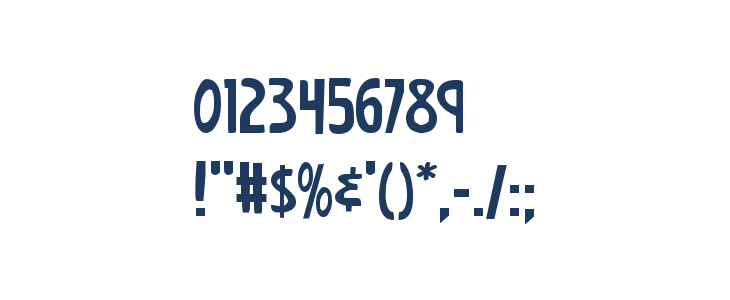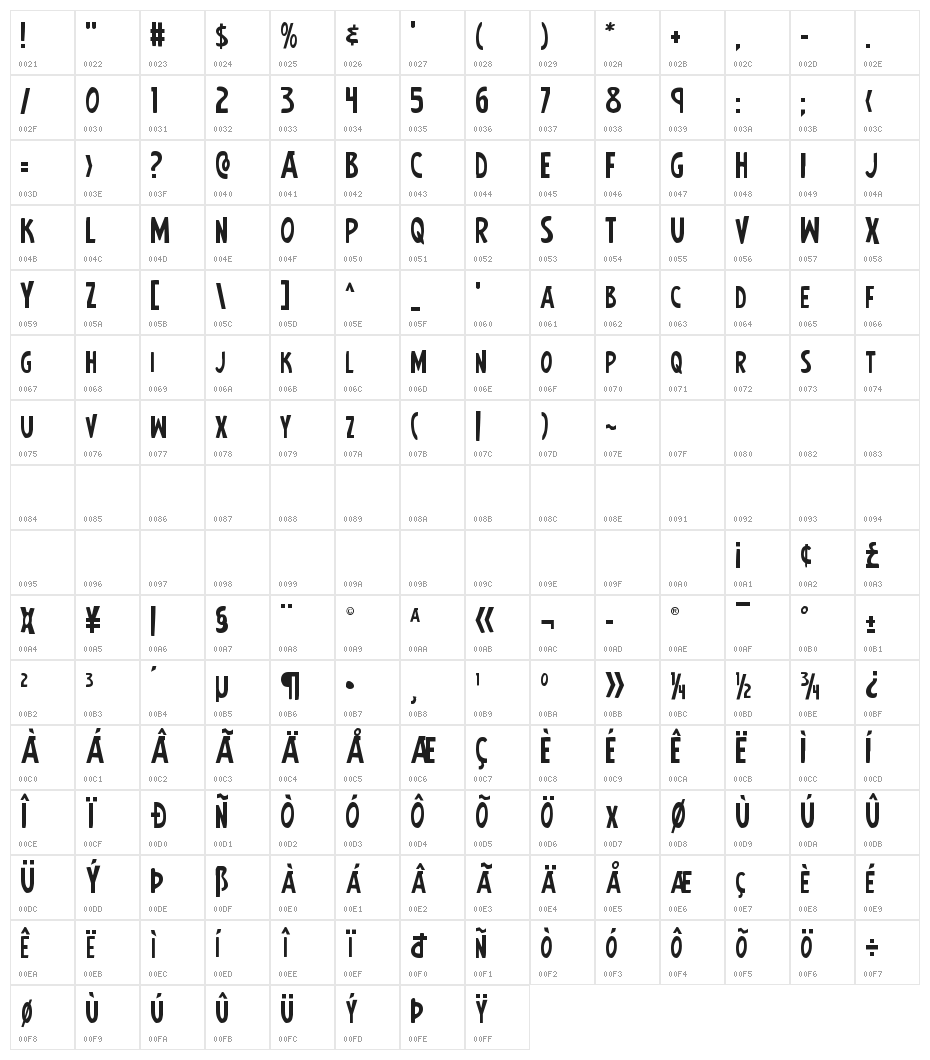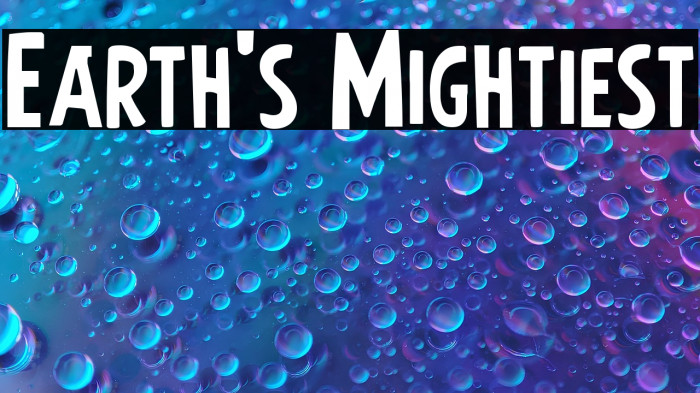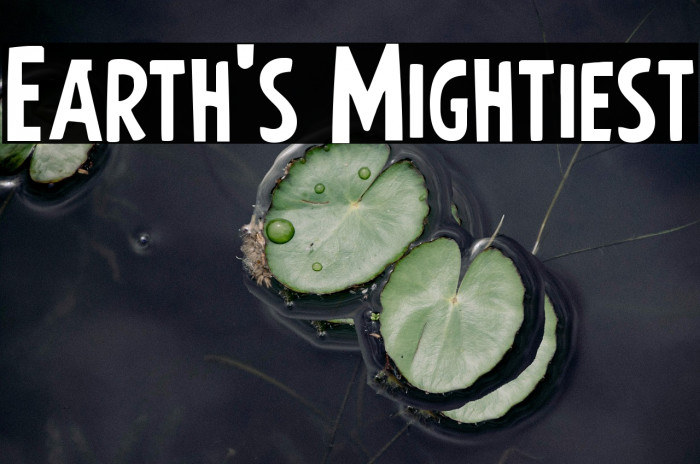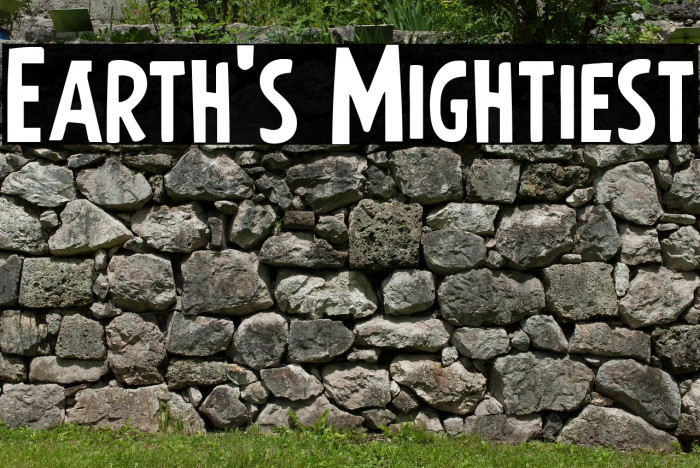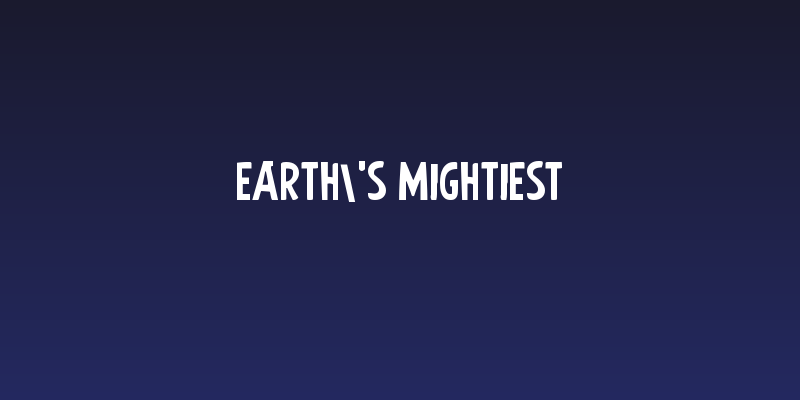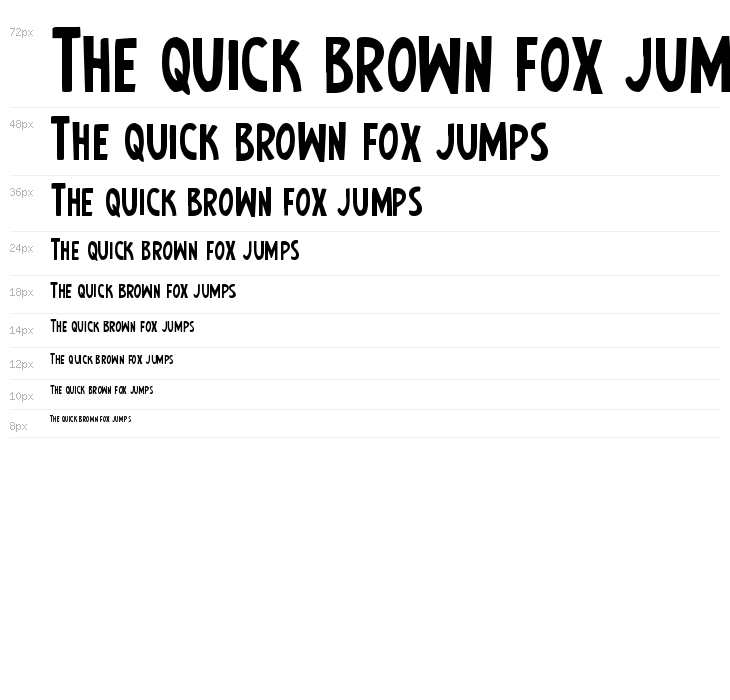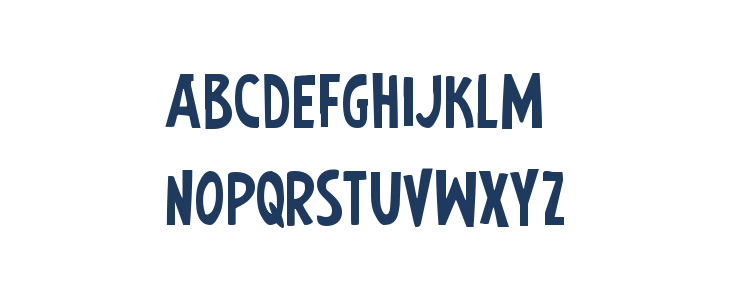
Earth's Mightiest Font
Earth's Mightiest Description
This font features bold, uppercase letters with a slightly condensed appearance, giving it a strong and impactful look. The characters have a playful yet assertive style, with a slight slant that adds a dynamic feel. The numbers and special characters maintain the same boldness and style, ensuring consistency across all glyphs. This font is ideal for projects that require a bold statement, such as posters, headlines, and branding materials. Its unique style makes it stand out while remaining legible.
| Proposed Projects | Ideal for posters, headlines, branding, and any project needing a bold statement. |